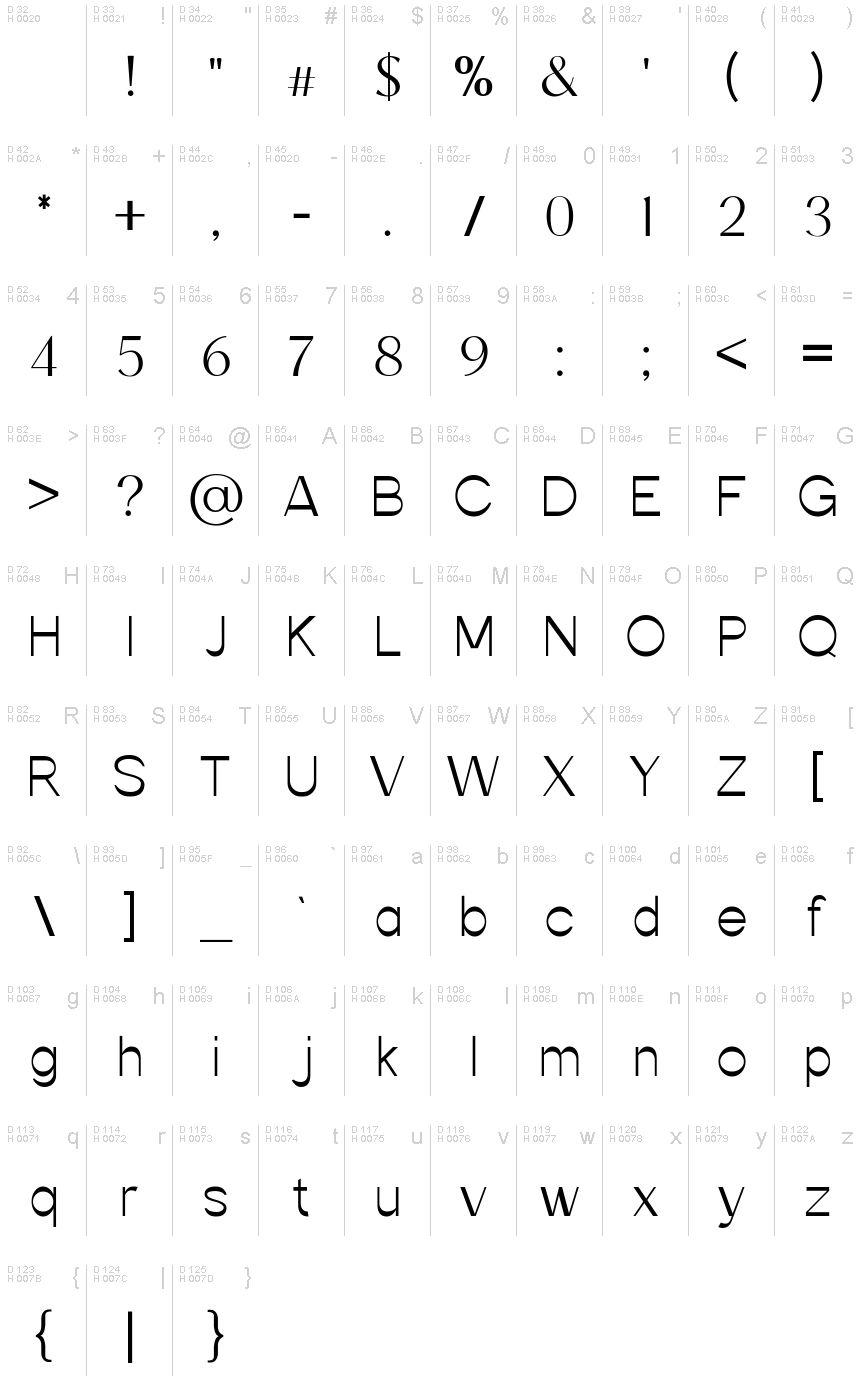
Severange
Severange font by UI Creative. It is a sans serif typeface font, with modern and clean lines, uniform stroke width, minimalist style, geometric shapes creating a contemporary mood, low contrast details.
This font can be used for print design such as posters, cover books and magazines or for web like landing pages or mockup designing. You can use Severange typeface for any business company – from commercial company to startups.